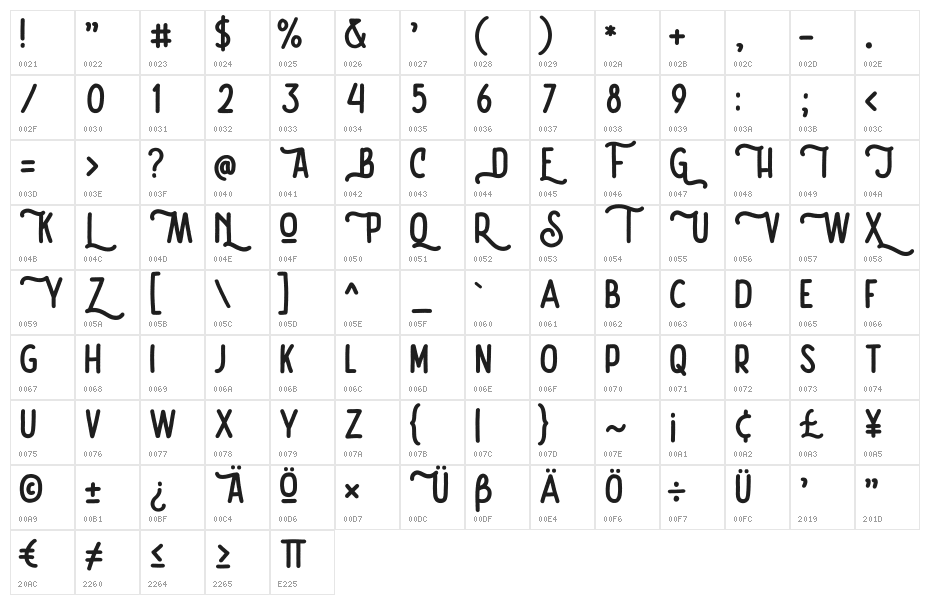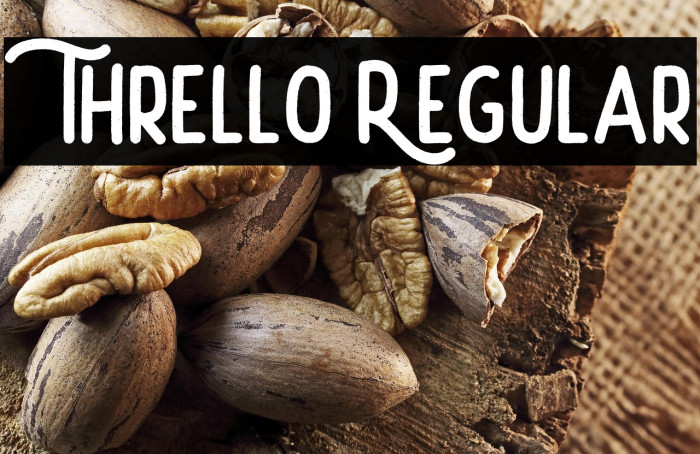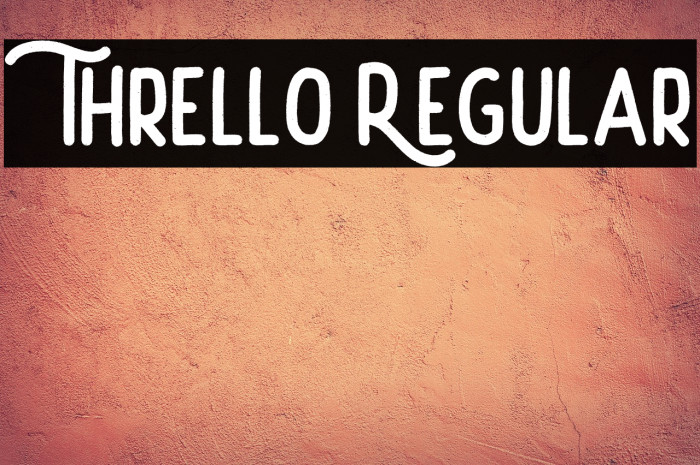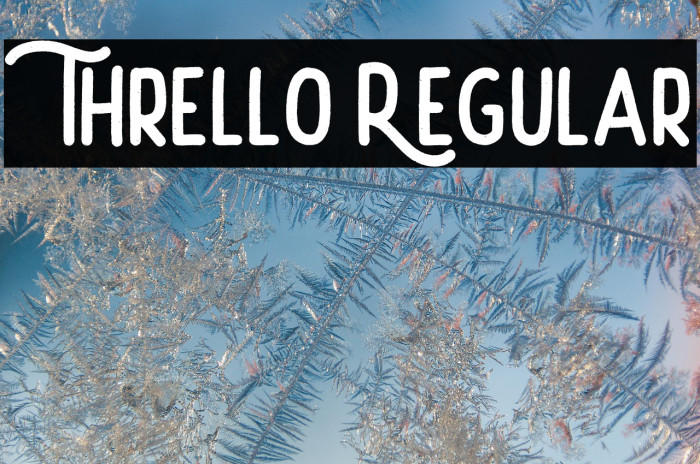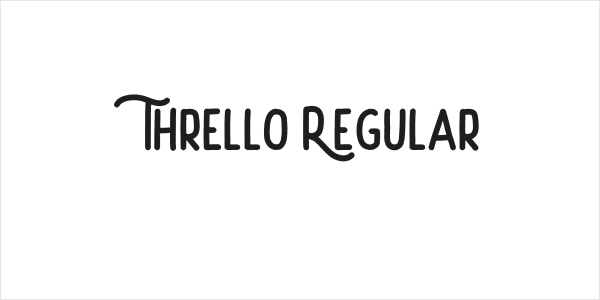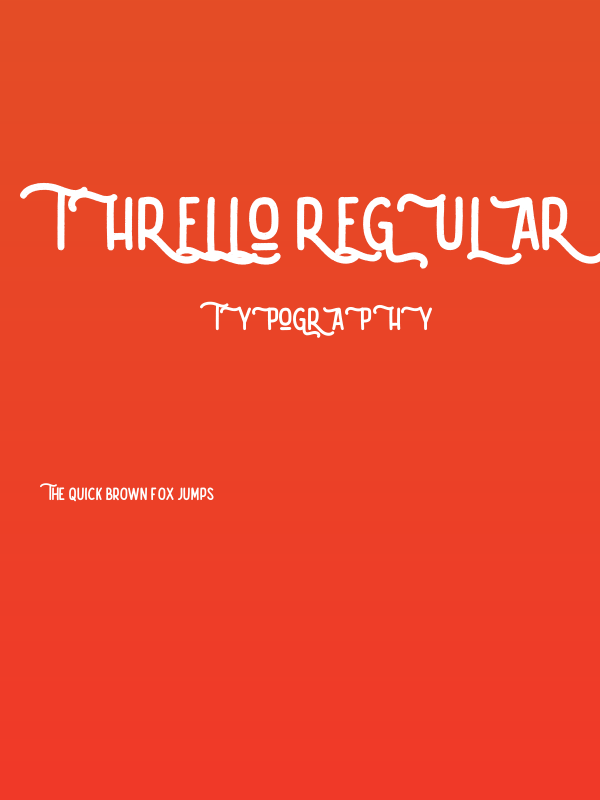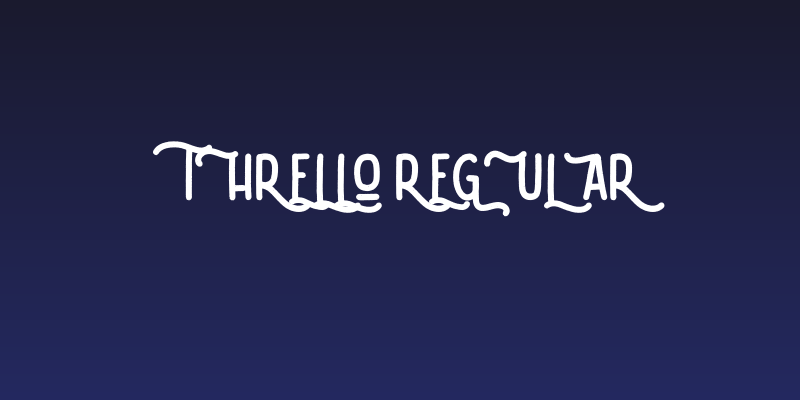
Thrello Regular Font
Thrello Regular Description
This font features a playful and whimsical design with a handwritten style. The uppercase letters have a unique, flowing quality with some characters incorporating loops and curls, adding to its charm. The lowercase letters maintain a consistent style, complementing the uppercase with a slightly more subdued flair. The numerals are bold and clear, ensuring readability while maintaining the font's overall playful aesthetic. Special characters are creatively designed, fitting seamlessly with the rest of the font. This font is ideal for projects that require a touch of personality and creativity.
| Overall Style | Playful |
| Use Case | Logos, Headlines, Creative projects |
| Proposed Projects | Ideal for children's books, greeting cards, playful branding, and creative posters. |